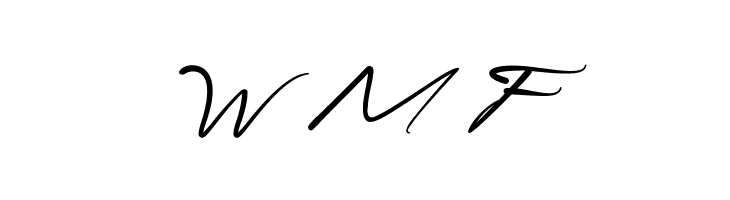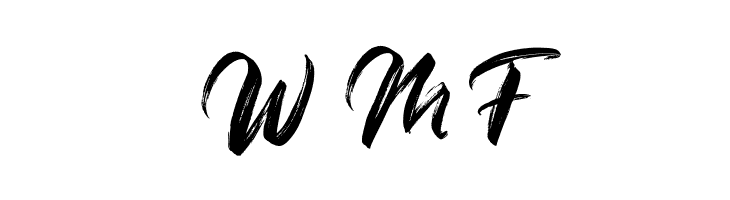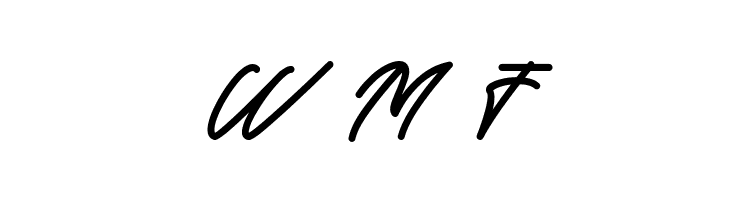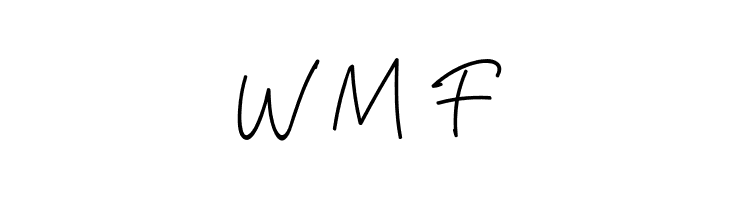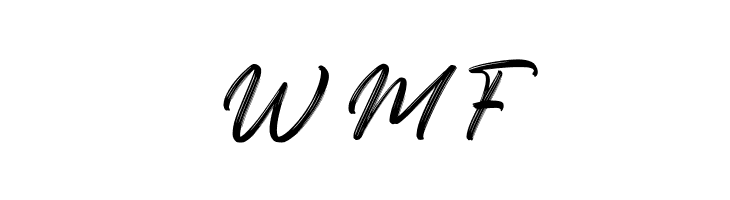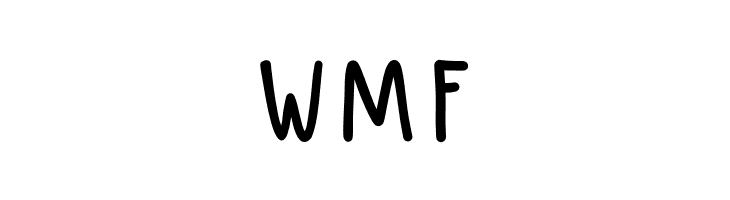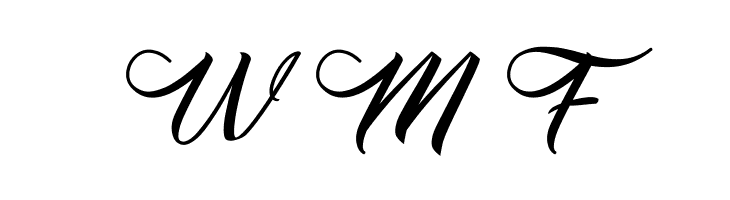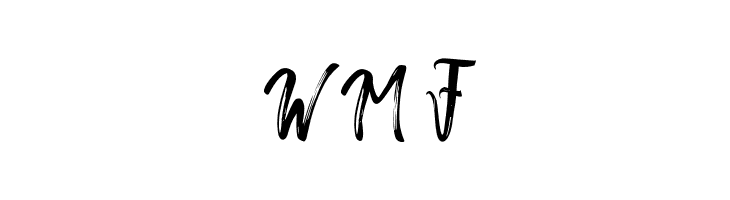
A bold, expressive script font with a hand-drawn, lively style.
An elegant, cursive font with fluid, graceful lines.
A flowing, cursive font with elegant, interconnected strokes and a modern calligraphic style.
A delicate, flowing script font with elegant, thin strokes and a handwritten feel.
A bold, playful script font with smooth, flowing curves.
A flowing, cursive script font with elegant, connected strokes.
A whimsical, cursive font with flowing, interconnected strokes and elegant flourishes.
A lively handwritten font with fluid and dynamic strokes.
A flowing, cursive script font with elegant, handwritten strokes.
A bold, elegant script font with flowing, cursive letterforms.
A bold, expressive brush script font with dynamic strokes.
A flowing, cursive script font with elegant, interconnected letters.
A fluid and elegant script font with a cohesive cursive style.
An elegant, flowing script font with intricate loops and delicate strokes.
A bold, high-contrast font with a vintage yet modern appeal.
A bold, decorative font with vintage flair and ornamental serifs.
A lively and elegant script font with fluid, expressive letterforms.
A bold, dynamic script font with a handwritten appearance.
A lively handwritten font with fluid, expressive strokes.
A bold, cursive script font with dynamic strokes and elegant swashes.
A playful, hand-drawn outline font with a casual and friendly style.
A bold, playful handwritten font with rounded edges and consistent stroke thickness.
A playful, thin handwritten font with a casual and whimsical style.
A playful, handwritten font with rounded edges and consistent stroke width.
A bold, Gothic-inspired font with sharp, angular lines and ornate details.
A dynamic and elegant script font with flowing, cursive letterforms.
A graceful script font with flowing, interconnected letters and ornate flourishes.
A dynamic and elegant script font with fluid, flowing letterforms.
A flowing, elegant cursive font with interconnected strokes and a handwritten appearance.
A bold, wide serif font with sharp, angular serifs and a classical aesthetic.
A dynamic, expressive handwritten font with fluid strokes and artistic flair.
A decorative and ornate font with floral embellishments and high contrast strokes.
A dynamic, brush-style font with a slanted, energetic appearance.
A bold, geometric font with uniform strokes and a modern touch.